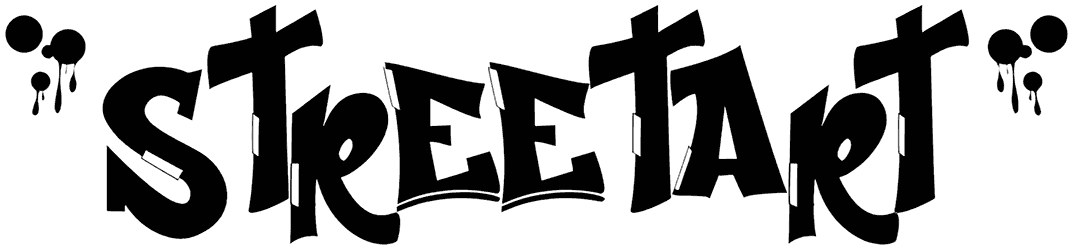
Streetart Font
Streetart is one of those fonts that every designer should have in their collection. For whenever you’re running thrilling projects, it can use as one of the main foundations.
This graffiti font has 2 styles and doesn’t include small letters and numbers. However, it can still have an eye-catching effect on animation posters, computer games, and children’s album covers. This script font is suitable for all ages and can play a role in any place that needs some variety and excitement.